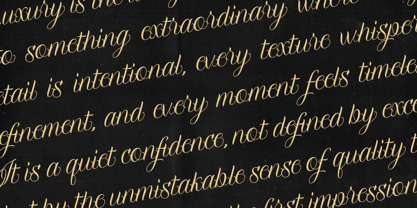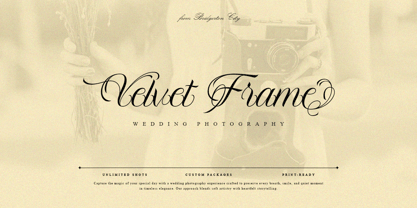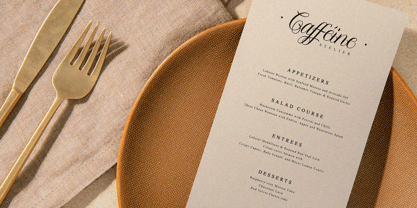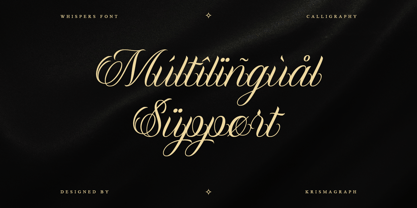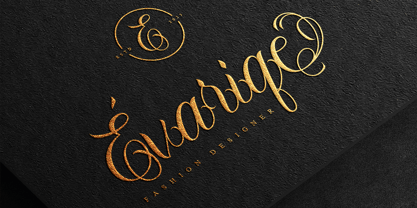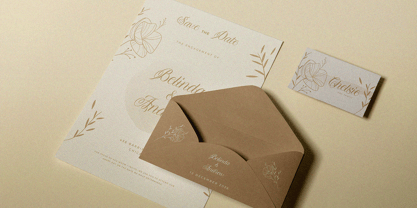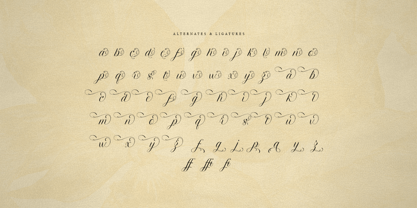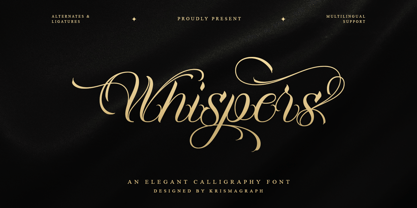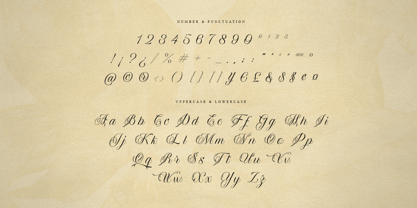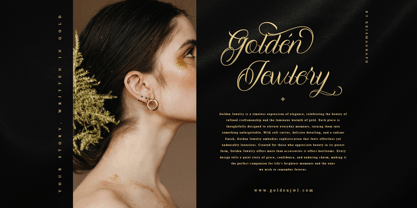
Whispers
von Krismagraph
Die Schriftfamilie Whispers wurde von Ratna Krismawati entworfen und von Krismagraph veröffentlicht. Whispers enthält 1 Stile. Mehr über diese Familie
Whispers is an elegant calligraphy font created with refined strokes and graceful movement. Its flowing letterforms and ornamental swashes evoke sophistication, romance, and timeless beauty — perfect for invitations, editorial titles, branding, packaging, and high-end creative projects. Designed with detailed alternates & ligatures and full multilingual support, Whispers offers flexibility while preserving an authentic handwritten feel. Every curve is carefully crafted to achieve harmony between elegance and readability. What you get : - Whispers File - Numbers, fractions - Punctuation and symbols - Alternates - Ligatures - Multilingual support Feel free to follow, like, and share. Thank you and I hope you enjoy it!